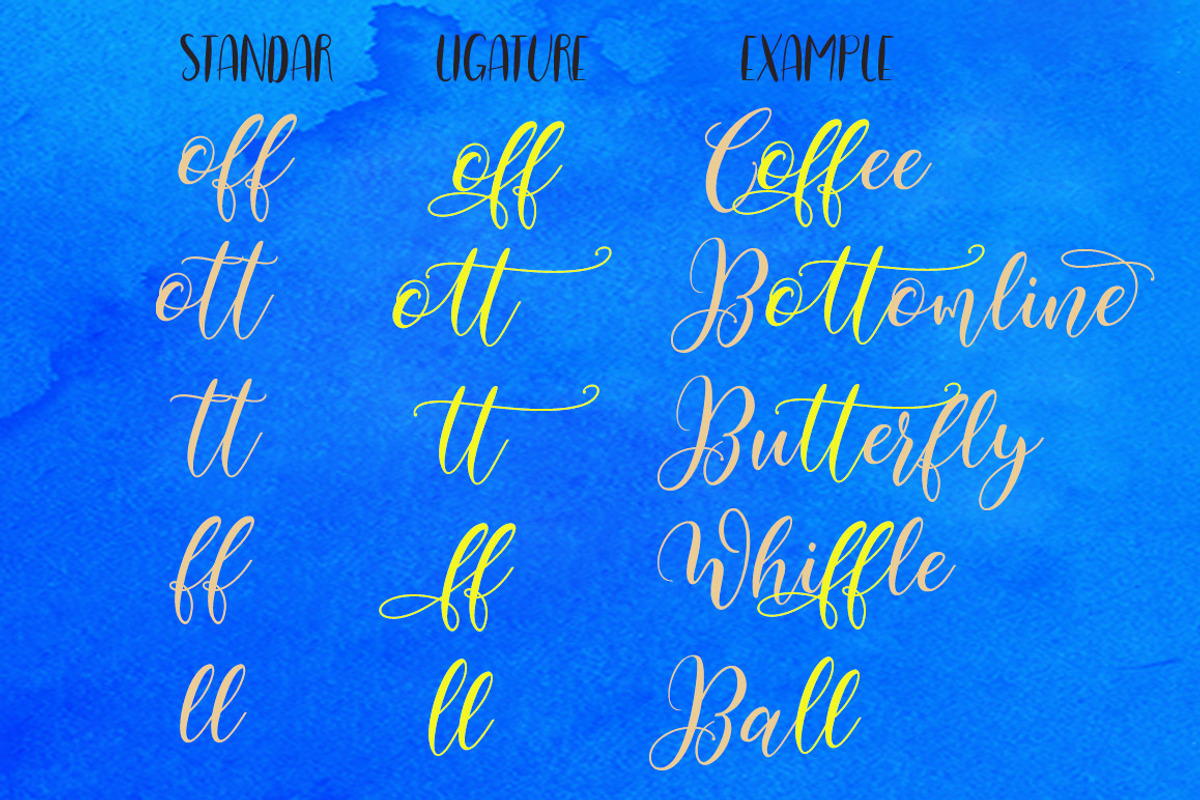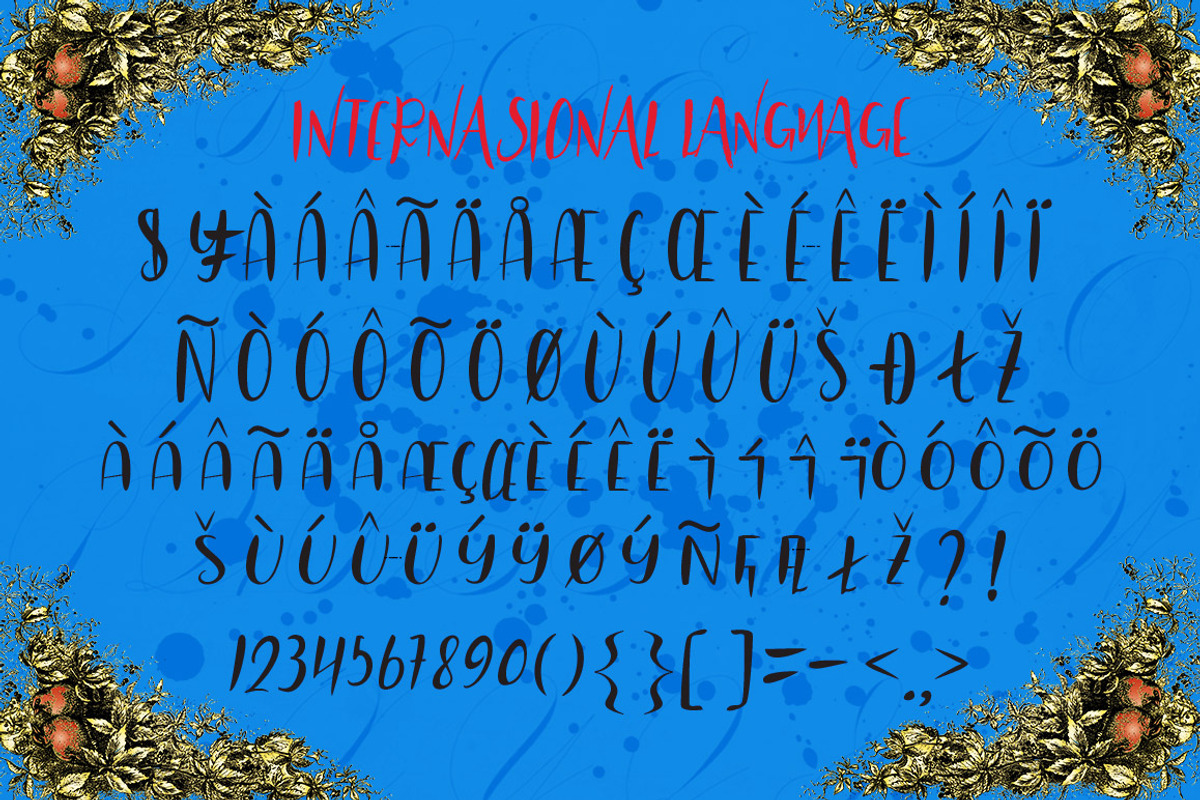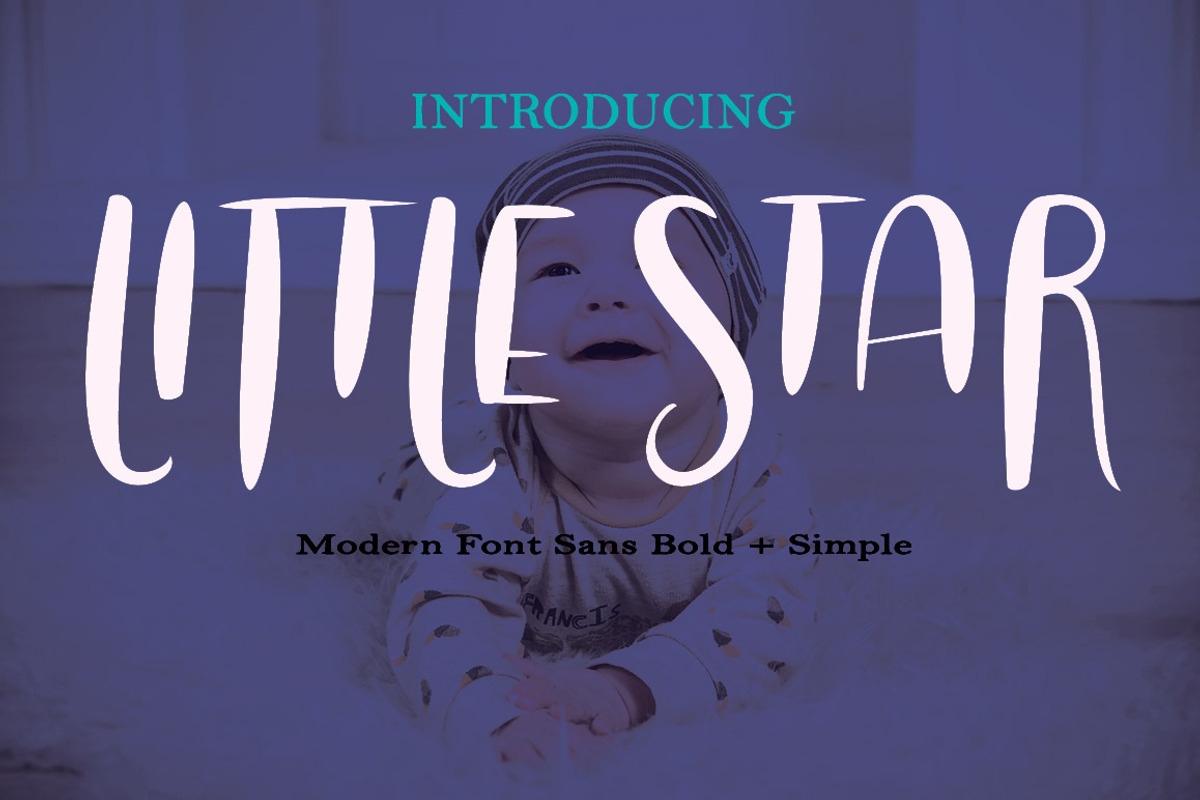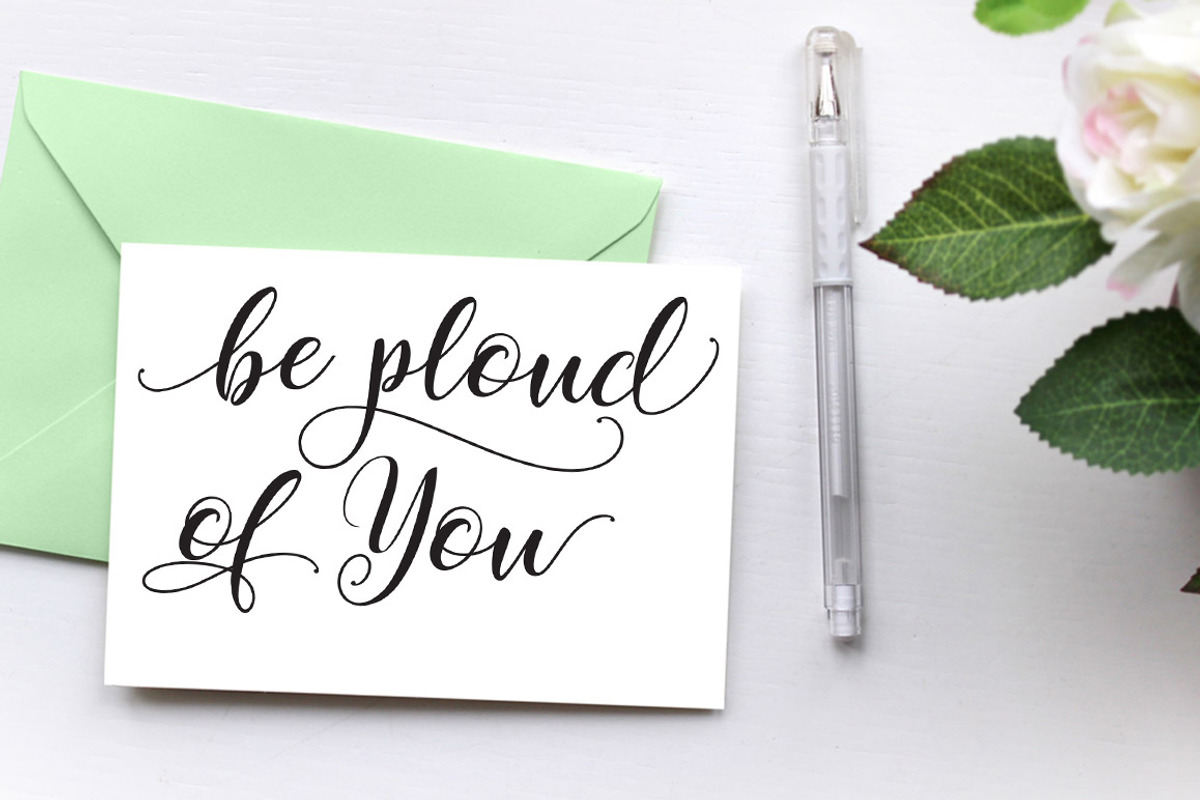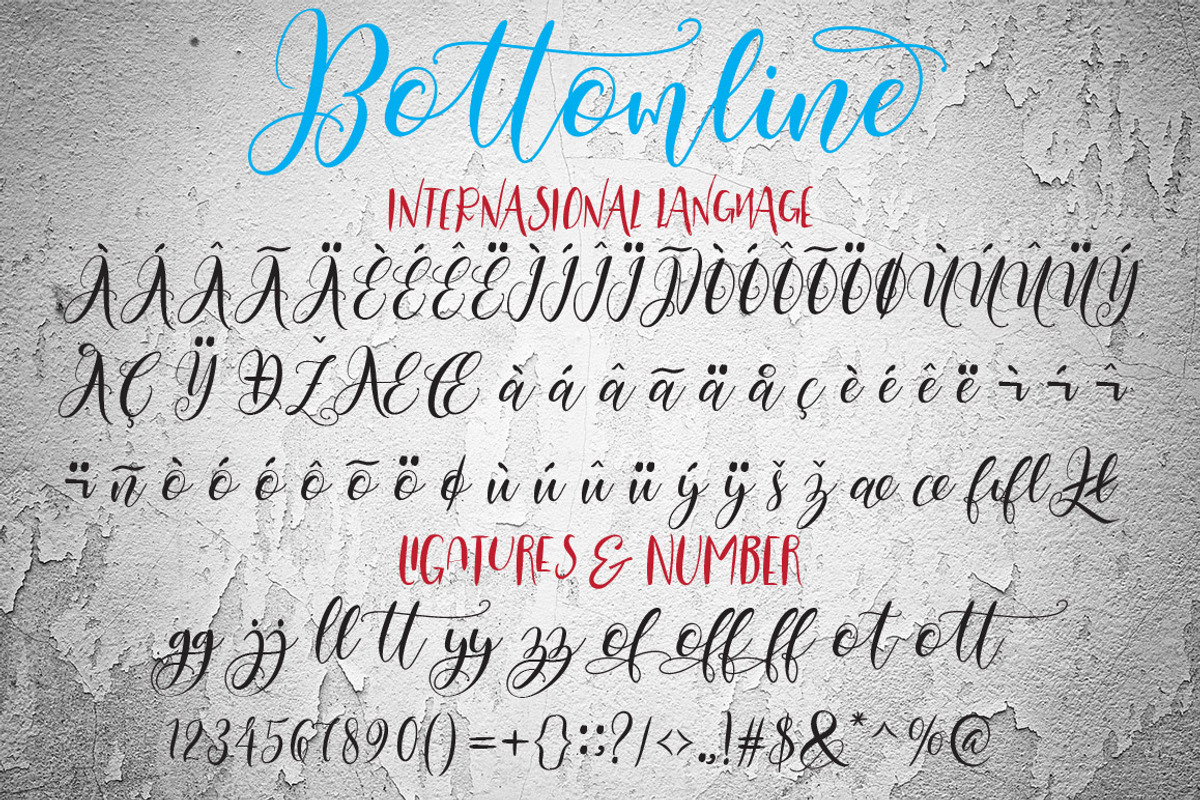
Bottomline
Bonttomline a font written to complement your art needs and combined with Little Star fonts that will make your writing more beautiful, brand writings, business cards, greetings, household items and better suited to your needs. Bottomline has the tips of beautiful letters that you easily combine.
Bottomline that contains uppercase and lowercase characters, numbers and punctuation. There are 542 characters in it. Little Star has 282 characters neat, not tidy, tall, short and brush.
Multilingual Support is included for the following languages: Danish, English, Faroese, Filipino, Finnish, French, Galician, German (Switzerland), Indonesian, Irish, Italian, Norwegian Nynorsk, Portuguese, Romansh, Scottish Gaelic, Spanish, Swedish, Swiss German.